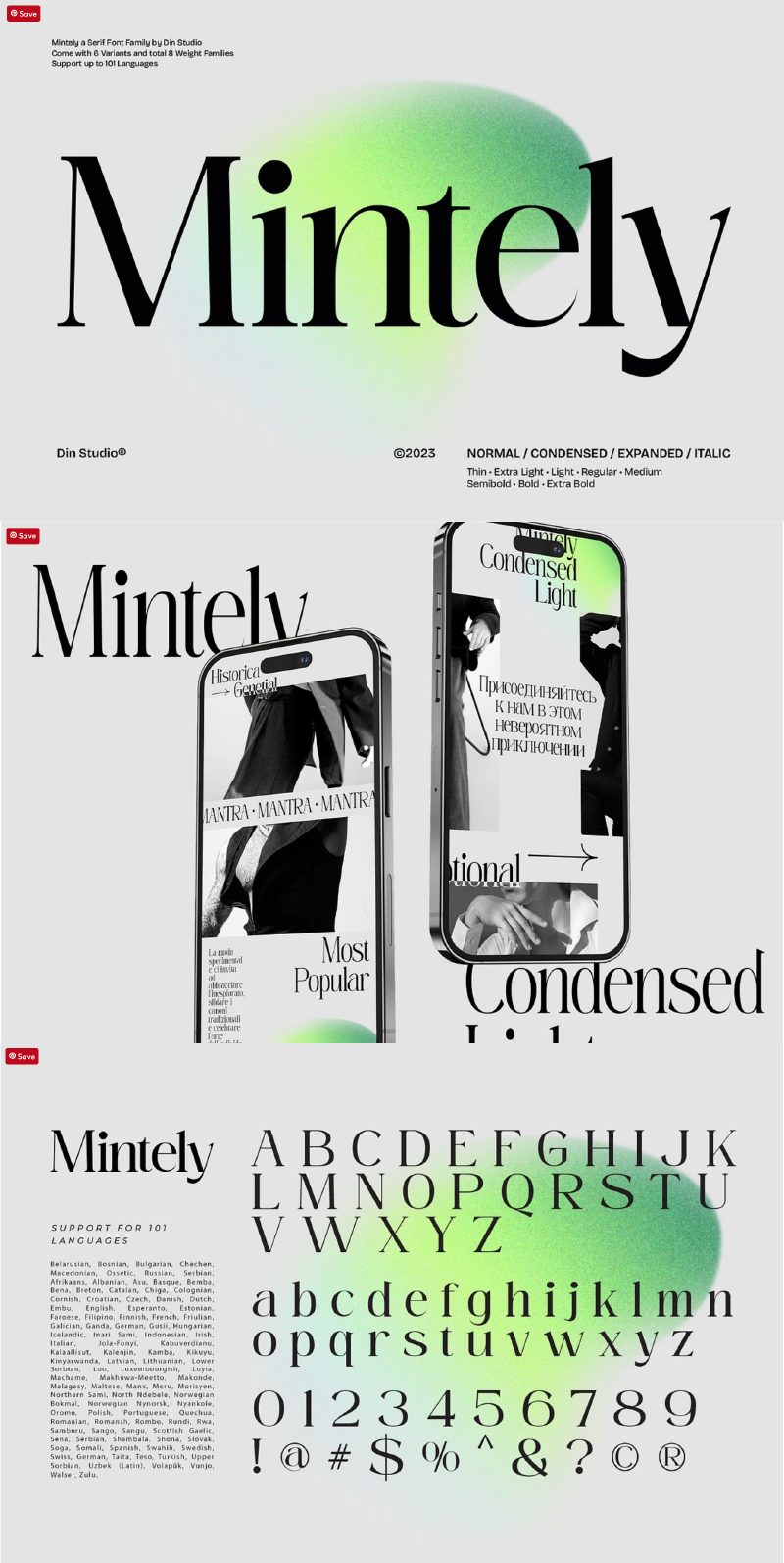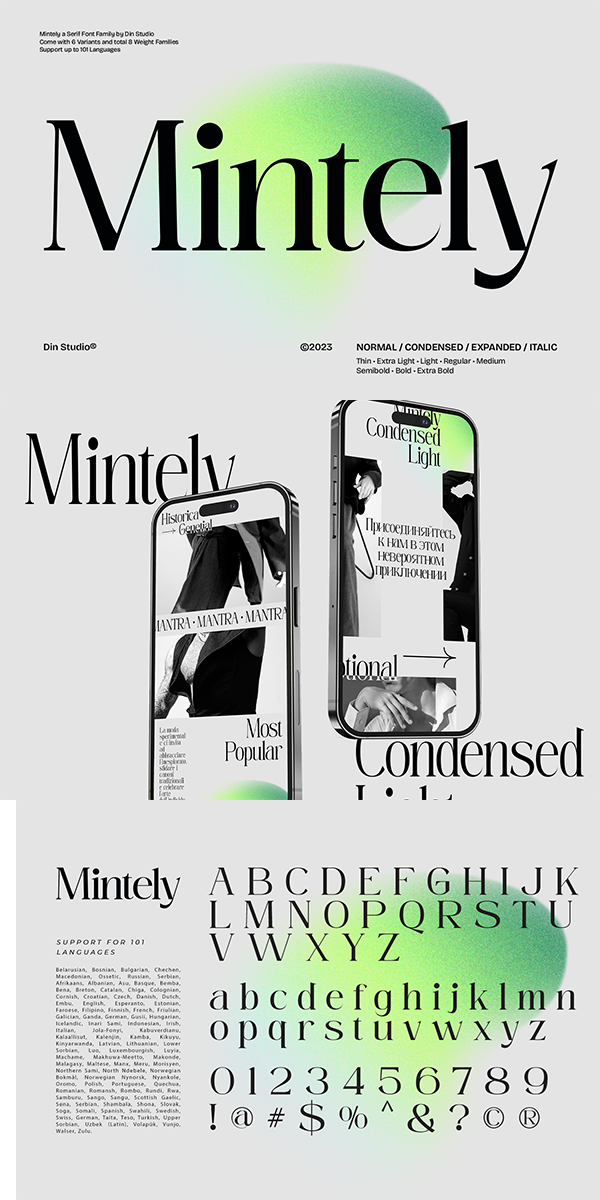
Mintely Font
About Mintely
Mintely is a sophisticated and versatile serif font family designed to elevate your typography to new heights of elegance and legibility. With its 6 style variations and 8 weight options, this font offers an extensive array of choices to suit a wide range of design projects. This family combines classic and modern elements, resulting in a timeless design that can adapt to various design contexts. The 6 style variations in this serif provide you with a variety of typographic options, allowing you to experiment with different looks and moods. Additionally, the 8 weight options in this font offer a wide range of possibilities in terms of contrast and emphasis. Because of its legibility you can use this font in a variation of text sizes. Enjoy the available features here.
Mintely include 8 different weight fonts :
-Thin
-Extra Light
-Light
-Regular
-Medium
-Semi Bold
-Bold
-Extra Bold
Mintely fits for any design projects, such as posters, banners, logos, book covers, album covers, quotes, invitations, greeting cards, name cards, headings, printed products, merchandise, social media, etc. Find out more ways to use this font by taking a look at the font preview.